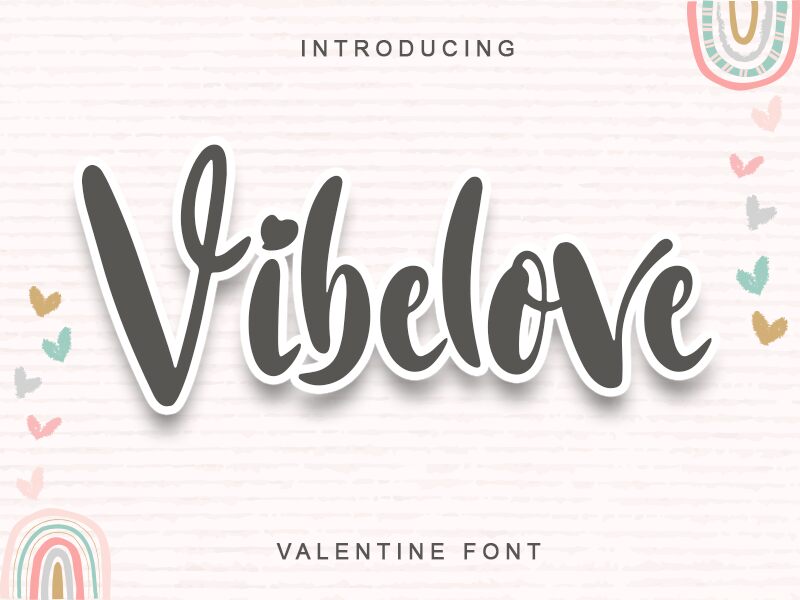
Vibelove is an elegant and versatile semi-condensed brush font designed by Alif Ryan Zulfikar. With its smooth brush style and bold weight, this font is perfect for a variety of projects that require a touch of sophistication and creativity. Use Vibelove in your branding materials, social media graphics, or wedding invitations to add a unique and personal touch to your designs. Its semi-condensed width makes it suitable for titles, headlines, posters, or any other project where space is limited. Elevate your design game with Vibelove and make a lasting impression on your audience.